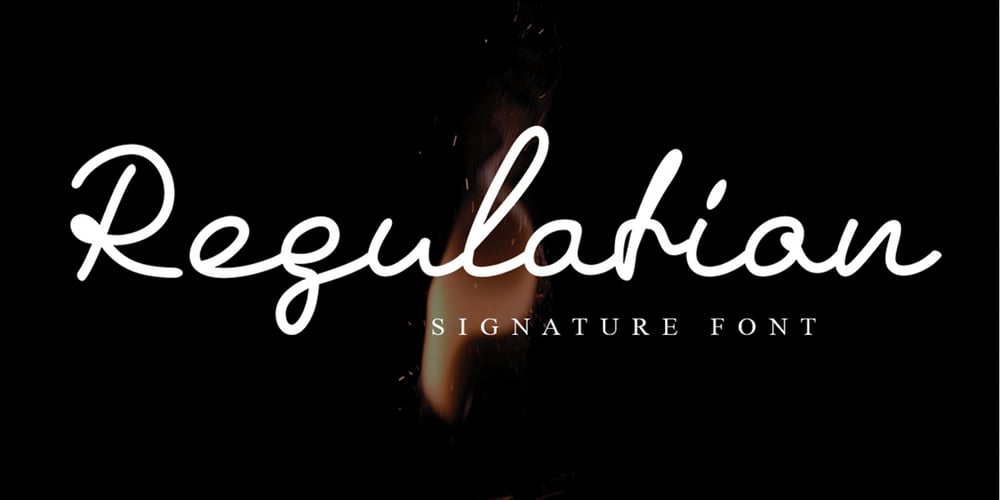
Regulation Signature Font Family was designed by Teuku Saifullah and published by Shape Studio. Regulation Signature contains 1 styles and family package options. Regulation Signature is a new modern script Handwritten font with an irregular baseline. Trendy and feminine style.Regulation Signature Script looks lovely on wedding invitations, thank you cards, quotes, greeting cards, logos, business cards and more. Perfect for using in ink or watercolour. Including initial and terminal letters, alternates, ligatures and multiple language support.To enable the OpenType Stylistic alternates, you need a program that supports OpenType features such as Adobe Illustrator CS, Adobe Indesign & CorelDraw X6-X7, Microsoft Word 2010 or later versions. There are additional ways to access alternates/swashes, using Character Map (Windows), Nexus Font (Windows), Font Book (Mac) or a software program such as PopChar (for Windows and Mac).Thanks so much for looking and please let me know if you have any questions